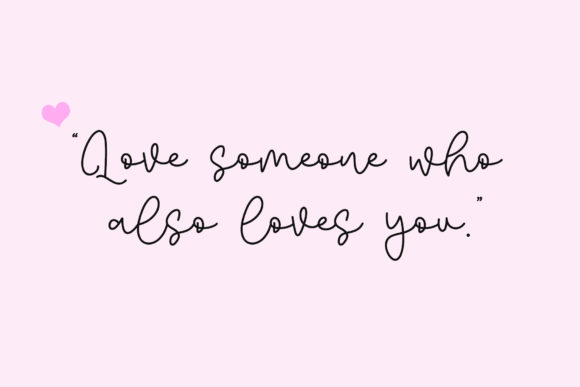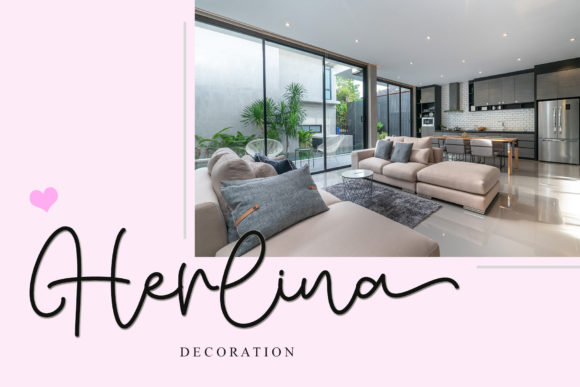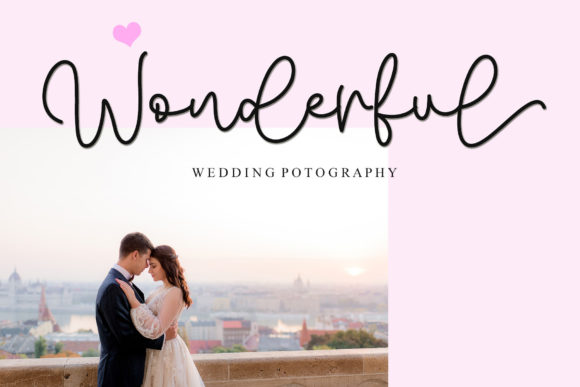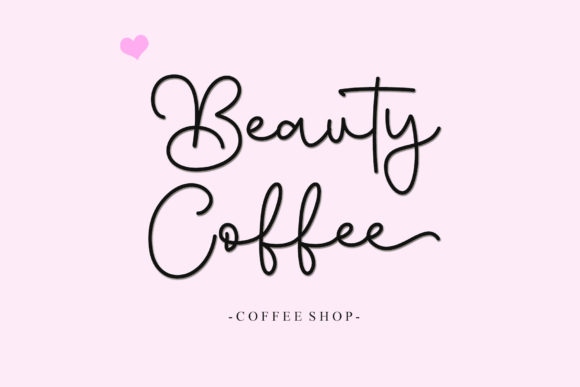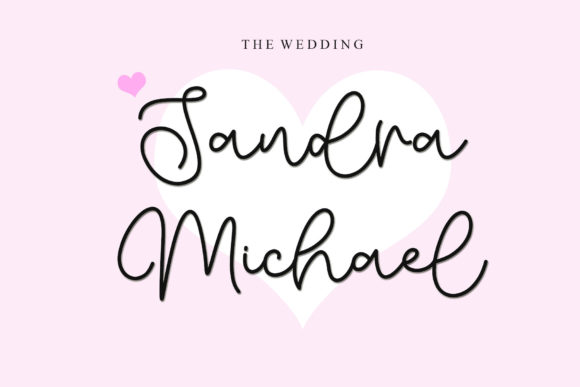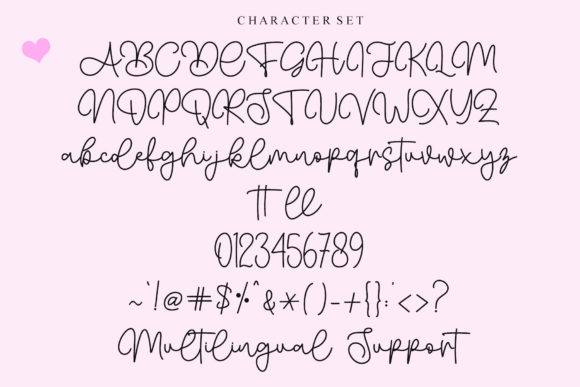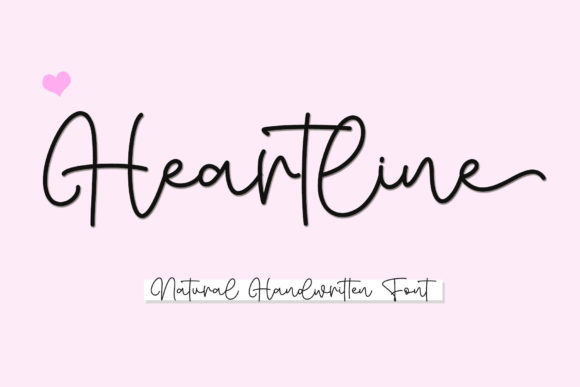
Introducing Heartline Font: The Perfect Addition to Your Design Projects
Are you tired of using the same old fonts in your design projects? Look no further than Heartline Font, a simple, thin lettered, and flowing handwritten font that’s sure to add a fun and friendly touch to your work. In this article, we’ll take a closer look at Heartline Font, its features, and how you can use it to elevate your designs.
What is Heartline Font?
Heartline Font is a beautiful, handwritten font that’s perfect for a variety of design projects. Its thin letters and flowing lines give it a light and airy feel, making it ideal for designs that require a touch of elegance and sophistication. Whether you’re working on a logo, brochure, or social media graphic, Heartline Font is sure to make your project stand out.
Key Features of Heartline Font
- Simple and Thin Letters: Heartline Font features simple, thin letters that are easy to read and look great on any design.
- Flowing Handwritten Style: The font’s flowing handwritten style gives it a friendly and approachable feel, making it perfect for designs that require a personal touch.
- Adaptable: Heartline Font is incredibly versatile and can be used on a wide range of design projects, from logos and brochures to social media graphics and more.
Benefits of Using Heartline Font
So why should you choose Heartline Font for your design projects? Here are just a few benefits of using this amazing font:
- Adds a Fun and Friendly Touch: Heartline Font is sure to add a fun and friendly touch to your designs, making them more approachable and engaging.
- Perfect for a Variety of Projects: Whether you’re working on a logo, brochure, or social media graphic, Heartline Font is versatile enough to work on a wide range of design projects.
- Easy to Read: The font’s simple, thin letters make it easy to read, even at small sizes.
How to Use Heartline Font in Your Designs
Using Heartline Font in your designs is easy. Here are a few tips to get you started:
- Pair it with Other Fonts: Heartline Font pairs well with a variety of other fonts, so don’t be afraid to experiment and find the perfect combination for your design.
- Use it for Headings and Titles: The font’s flowing handwritten style makes it perfect for headings and titles, where you want to make a bold statement.
- Add a Pop of Color: Heartline Font looks great in a variety of colors, so don’t be afraid to add a pop of color to your design to make it stand out.
Who is Heartline Font for?
Heartline Font is perfect for designers, crafters, and anyone who wants to add a touch of elegance and sophistication to their designs. Whether you’re working on a personal project or a client’s design, Heartline Font is sure to impress.
- Designers: If you’re a designer looking for a font that will add a touch of elegance and sophistication to your designs, Heartline Font is a great choice.
- Crafters: If you’re a crafter who loves to create handmade cards, gift tags, and other paper crafts, Heartline Font is a great addition to your design toolkit.
- Small Business Owners: If you’re a small business owner looking for a font that will help you stand out from the competition, Heartline Font is a great choice.
| Font Name | Heartline Font |
| Author | Letterafa Studio |
In conclusion, Heartline Font is a beautiful, handwritten font that’s perfect for a variety of design projects. Its simple, thin letters and flowing lines give it a light and airy feel, making it ideal for designs that require a touch of elegance and sophistication. With its adaptability, ease of use, and range of benefits, Heartline Font is sure to become a favorite in your design toolkit.